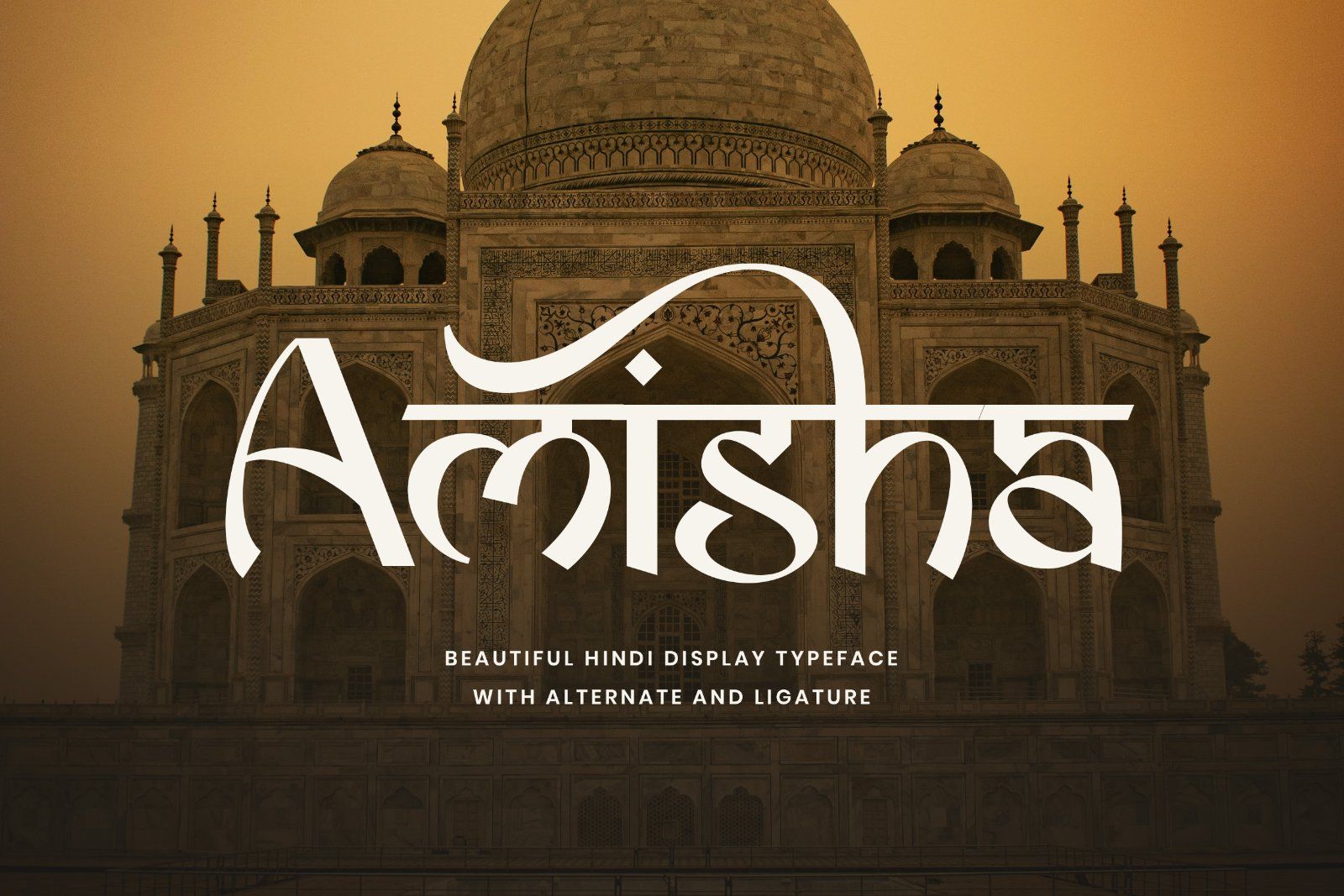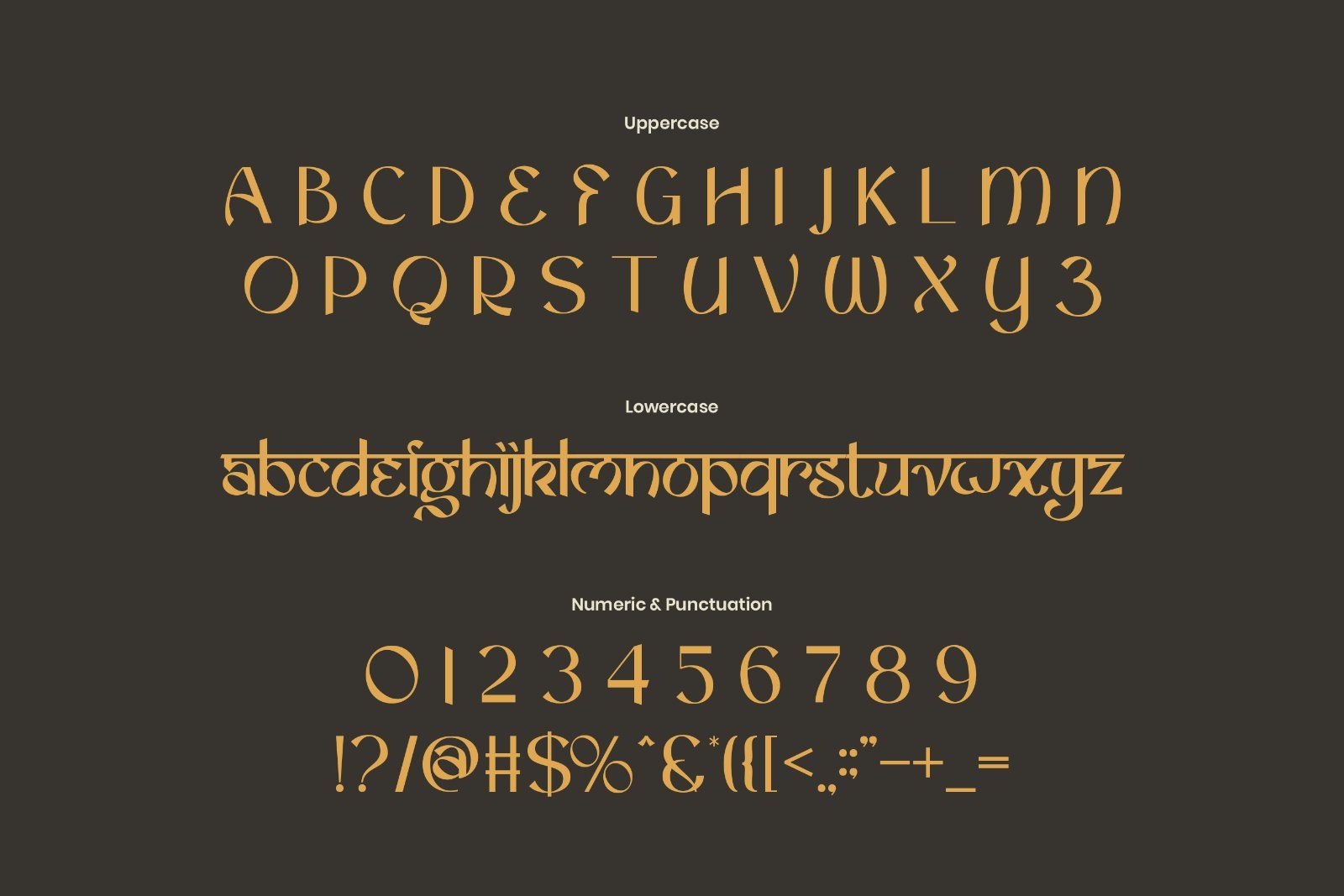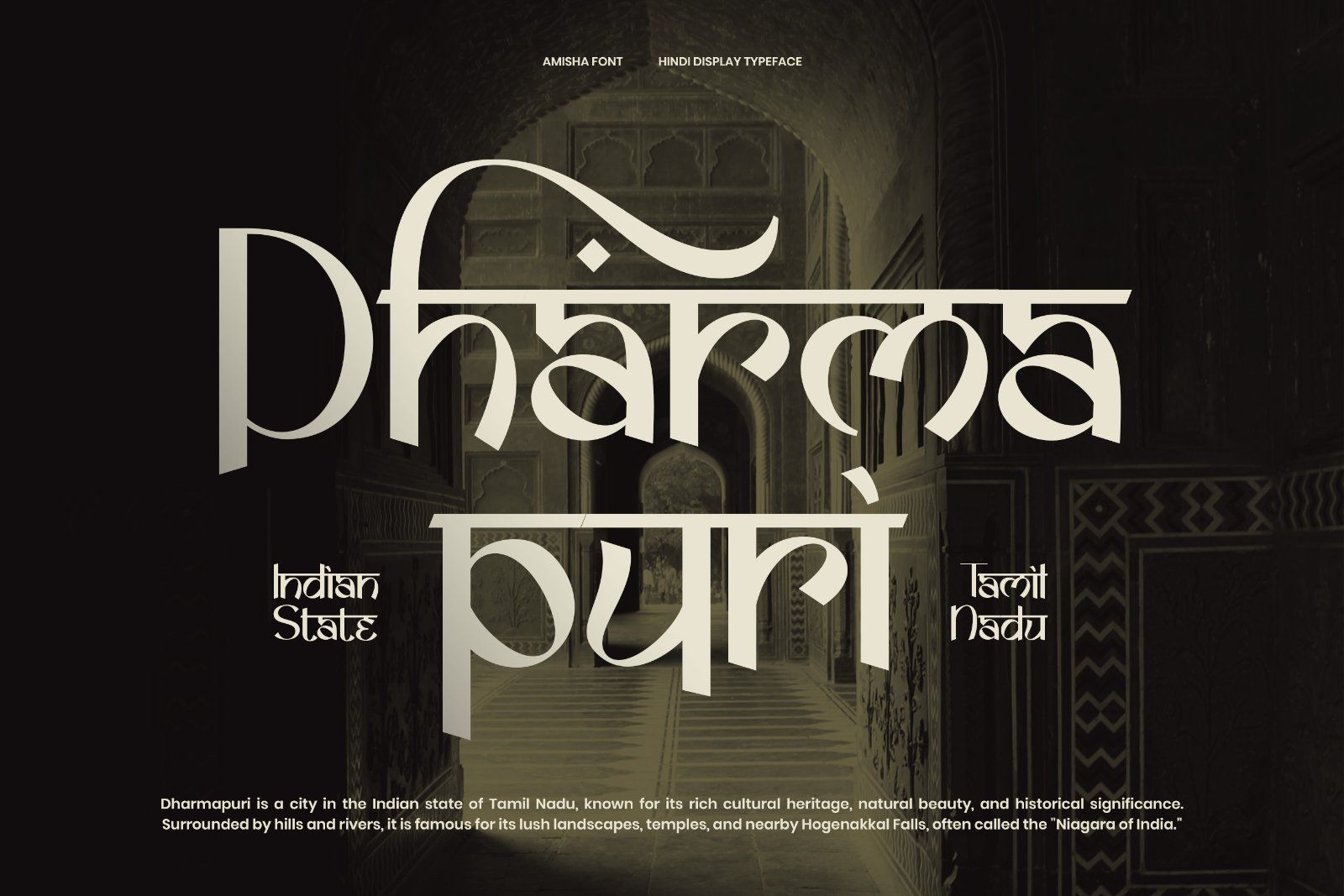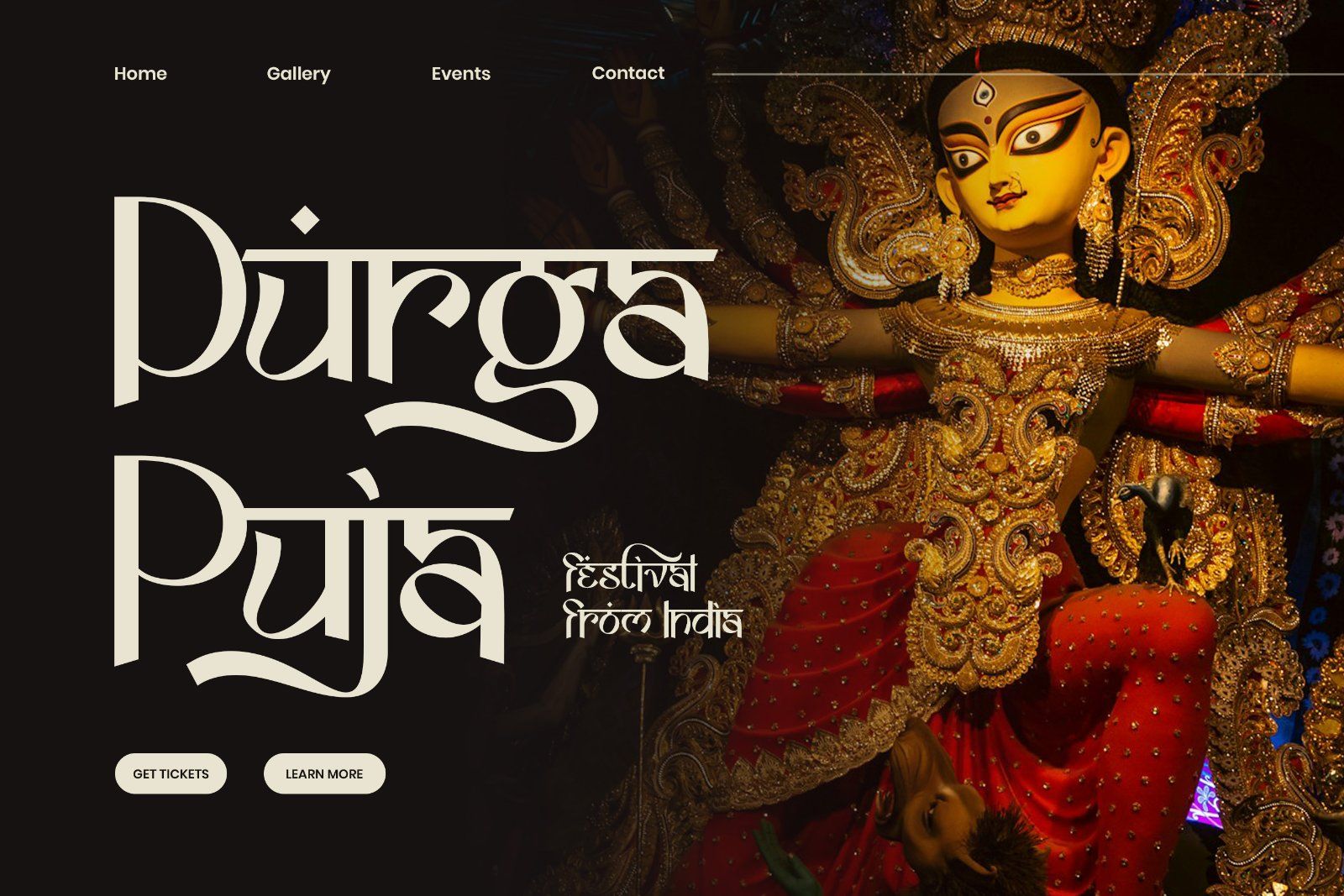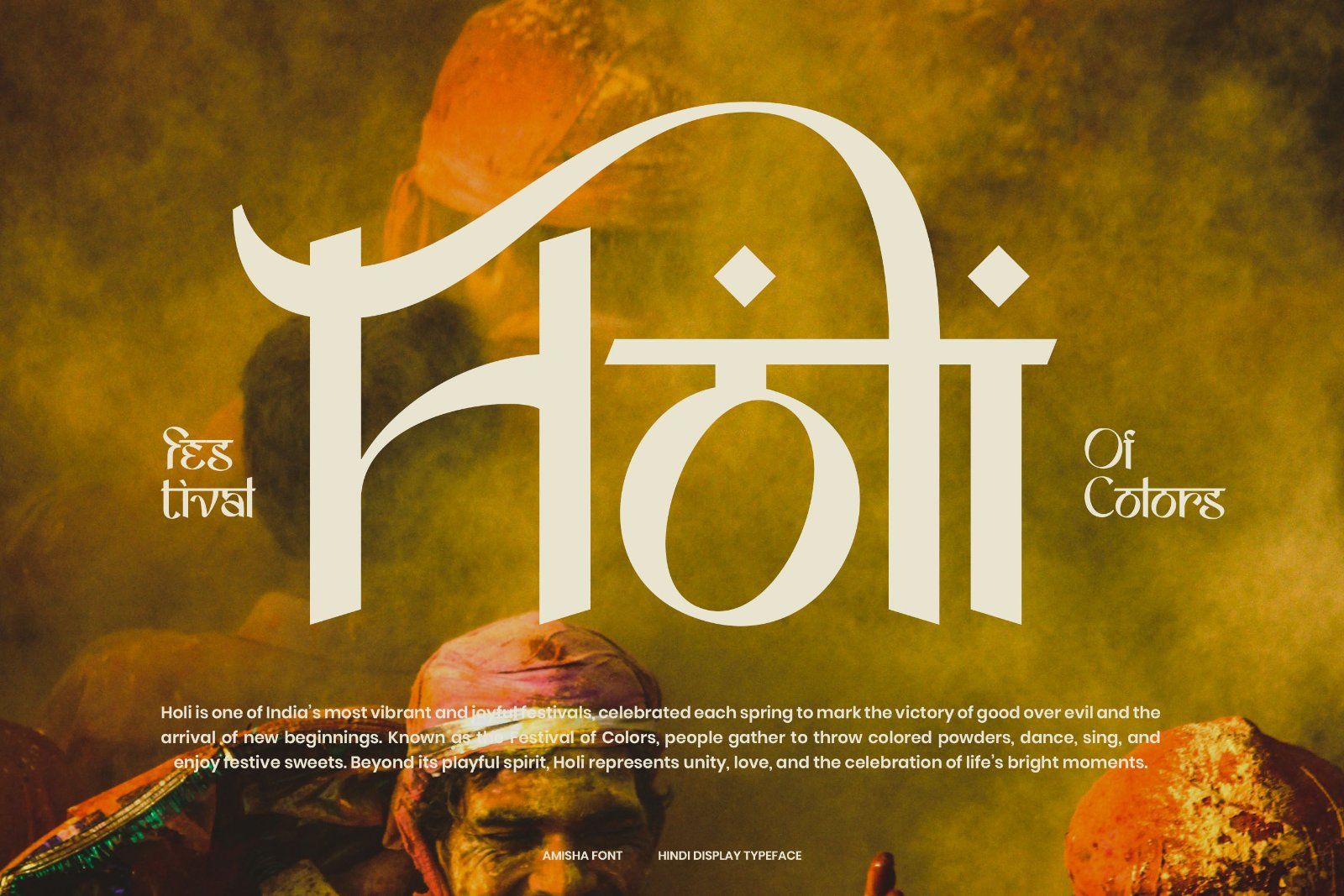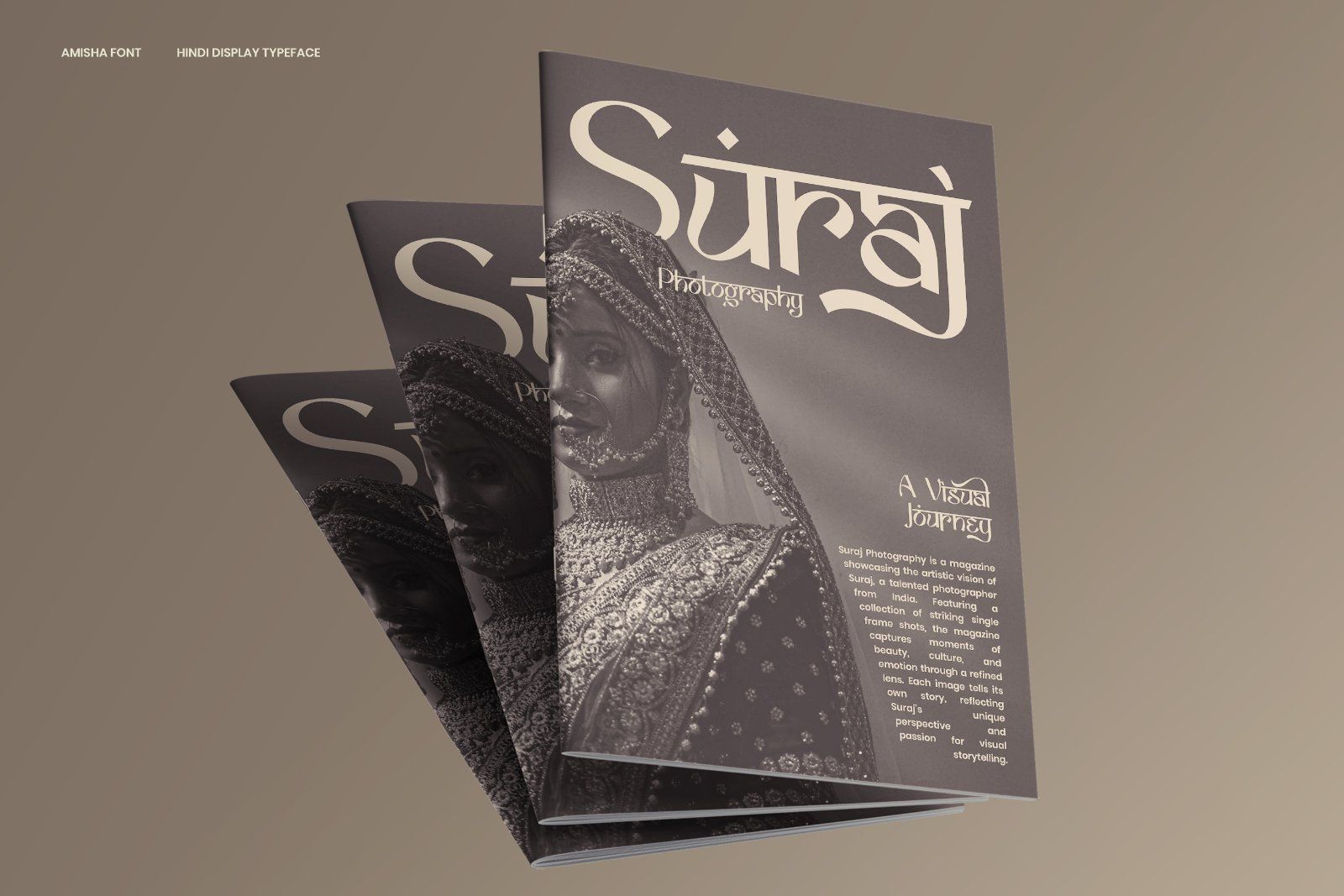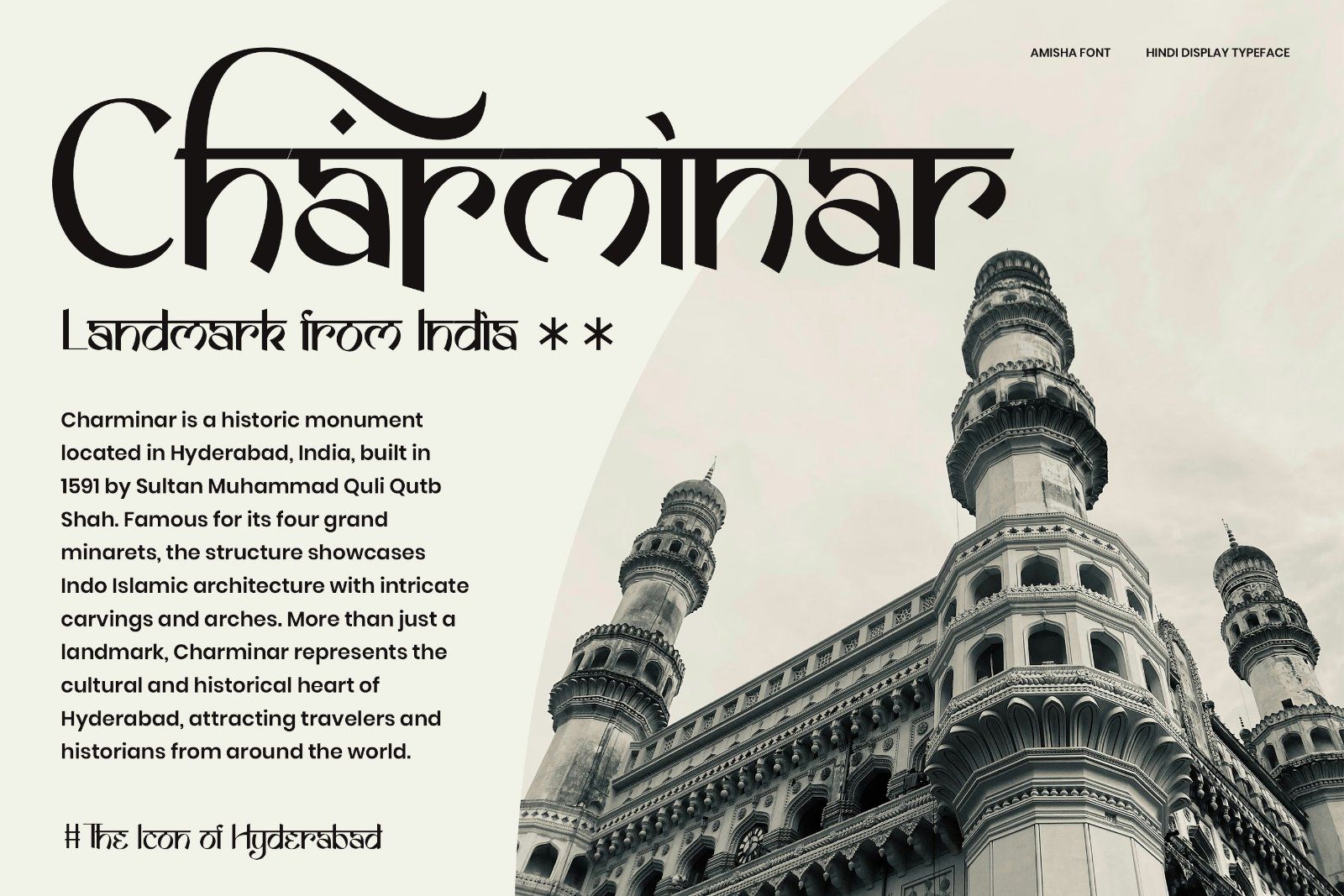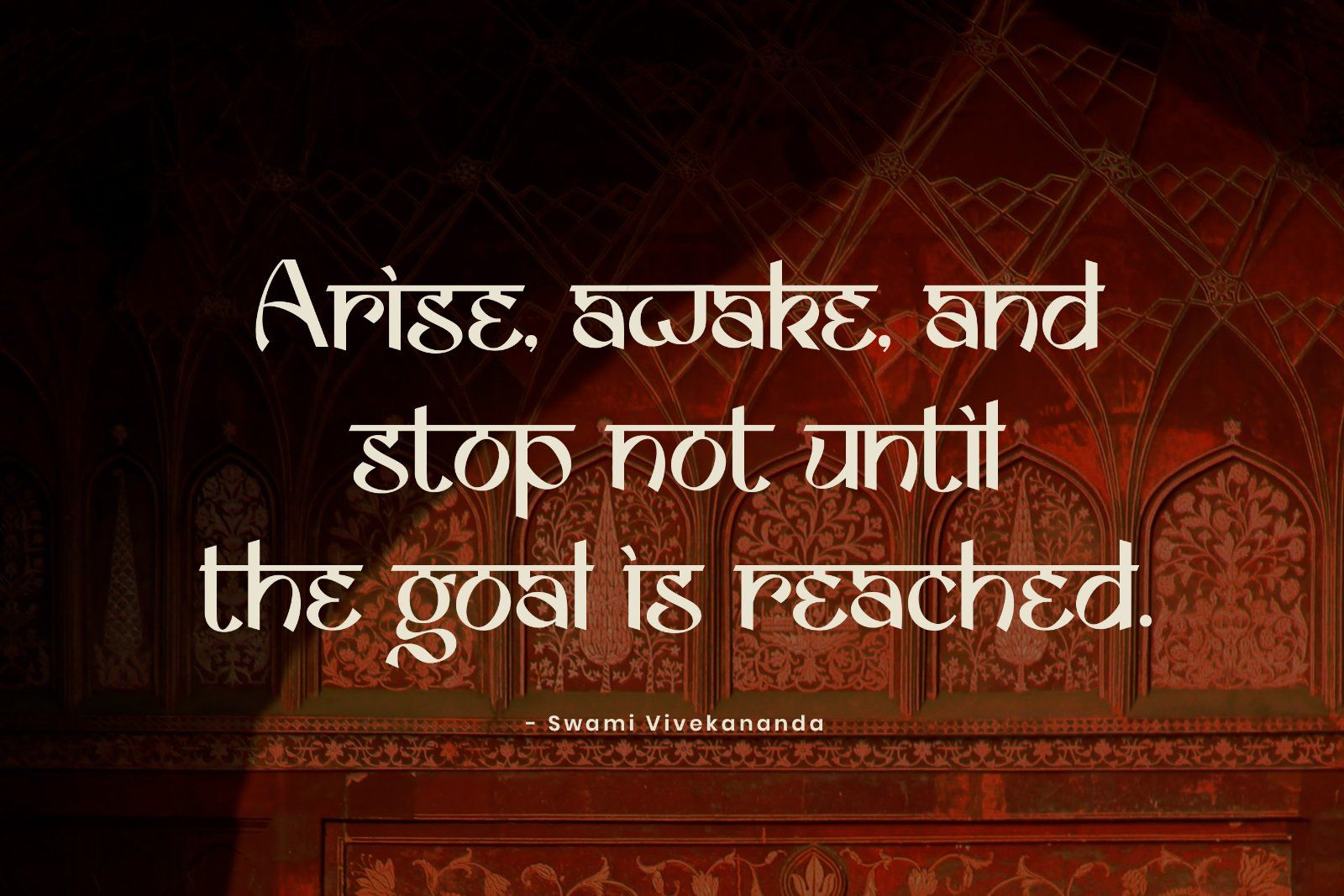
Amisha is a beautiful Hindi display font crafted with elegance and cultural charm. Designed with graceful curves, stylish alternates, and artistic ligatures, it captures the essence of traditional Hindi aesthetics while offering a modern display appeal. Perfect for cultural projects, branding, posters, invitations, and editorial designs, Amisha brings a touch of heritage and sophistication to every composition.
• Uppercase alphabet A-Z
• Lowercase alphabet a-z
• Numbers 0-9
• Some punctuation
• Some Alternates and Ligatures